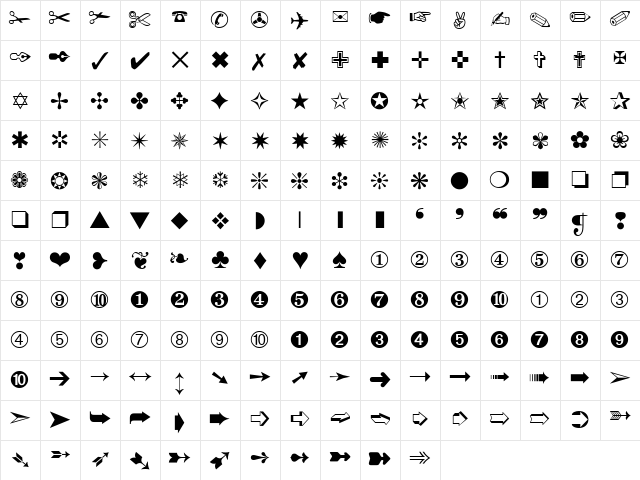
ITC Zapf Dingbats Medium
Design Context for ITC Zapf Dingbats Typeface
ITC Zapf Dingbats takes a measured approach to typography — its balanced proportions and neutral character make it a reliable workhorse for both digital and print work.